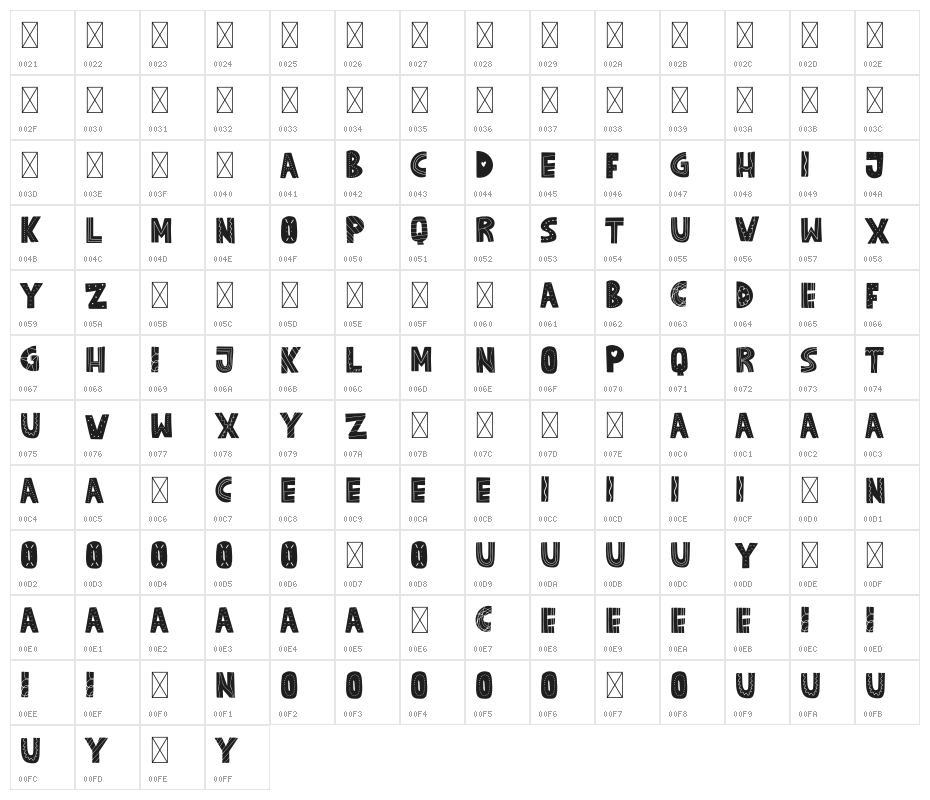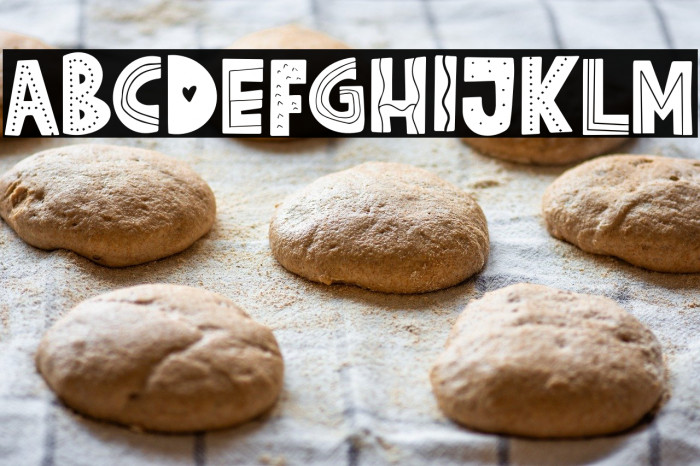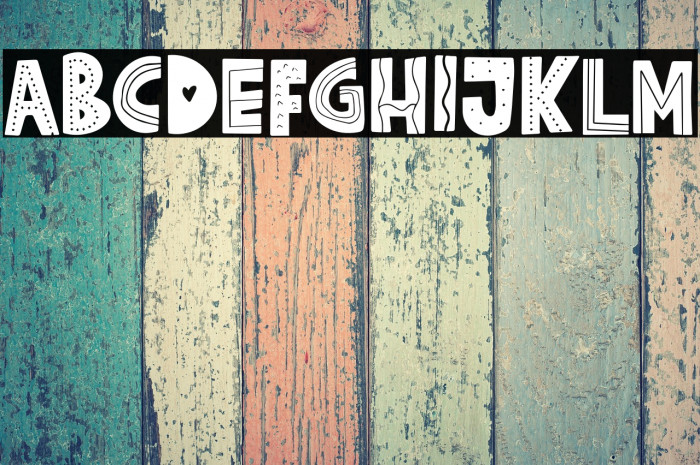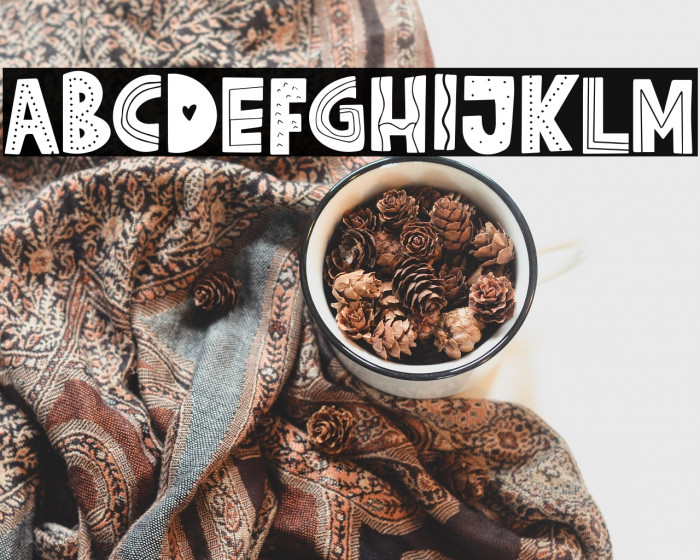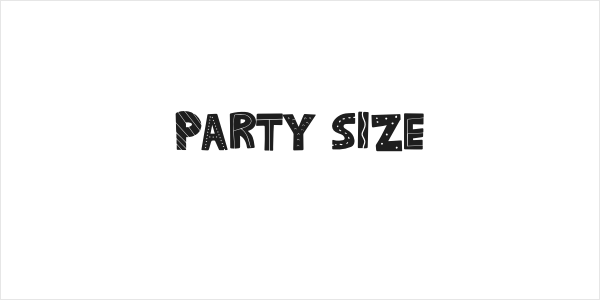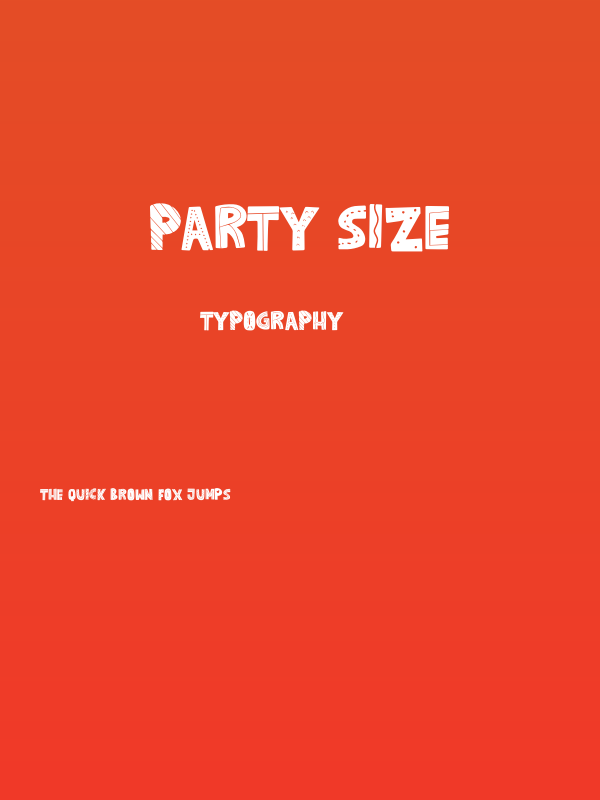
PARTY SIZE Font
| Stile generale | Playful, Whimsical, Energetic |
| Caso d'uso | Headlines, Posters, Invitations |
| Progetti proposti | Ideal for party invitations, children's book covers, playful branding, and festive event posters. |